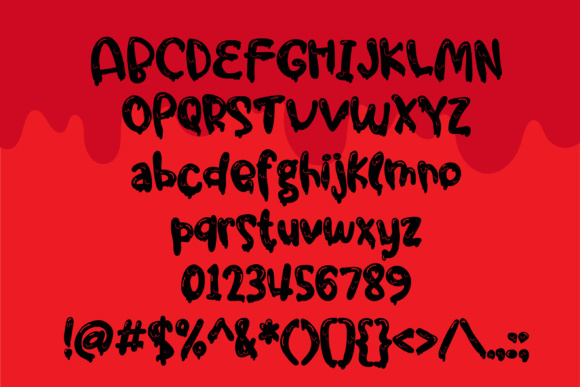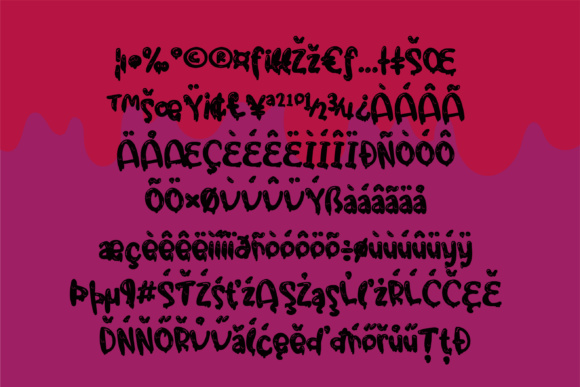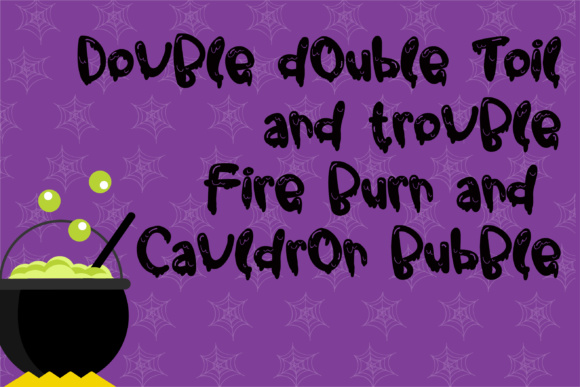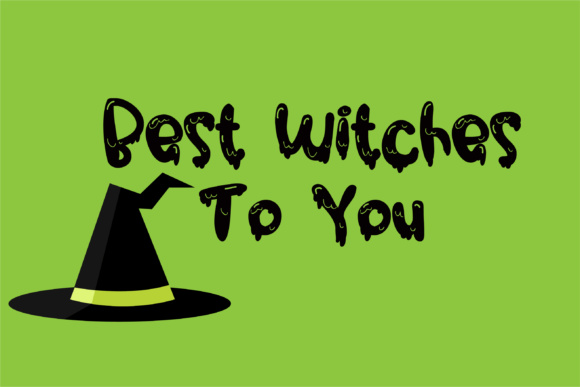
Introduction to Gooey Gumdrops Gorey Font
As a designer, have you ever found yourself in a creative rut, struggling to find the perfect font to match your project’s playful and whimsical vibe? You’ve spent hours scouring design resources, only to settle for a font that’s just…okay. But what if you could bring a little more excitement and personality to your design?
Enter the Gooey Gumdrops Gorey Font, a soft and gooey print that’s sure to add a sloppy feel to your next creative project. With its added goo and drips, this font is perfect for designers looking to add a touch of playfulness and whimsy to their work. And the best part? It’s available as a high-quality, free download, making it a valuable resource for designers of all levels.
Key Features of Gooey Gumdrops Gorey Font
- Unique, hand-drawn design with a playful, whimsical feel, perfect for creative projects and kids’ educational materials.
- This font is ideal for designers looking to add a touch of personality and fun to their creative projects, from children’s books to party invitations.
Honest Review: Gooey Gumdrops Gorey Font
I recently stumbled upon the Gooey Gumdrops Gorey Font, and I’m excited to share my thoughts on this unique design resource. As a designer, I appreciate fonts that bring an extra layer of creativity to my projects.
Here are some aspects that work well: ✨ The font’s gothic and eerie vibe is perfect for creating a spooky or mysterious atmosphere in your design. ✨ The high quality of the font ensures that it looks great on both light and dark backgrounds. ✨ The transparent background option makes it easy to layer and manipulate the font in your design.
However, there are some limitations to consider: ⚠️ The font may not be suitable for projects that require a more neutral or professional tone. ⚠️ Some users may find the font’s gothic vibe too intense or overwhelming.
Overall, I’m impressed with the Gooey Gumdrops Gorey Font. It’s a great addition to any designer’s toolkit, and I can see it being a hit for creative projects that require a touch of darkness and mystery.
The Gooey Gumdrops Gorey Font is ideal for creative projects that require a unique and playful touch. It’s perfect for designing children’s books, party invitations, and other fun and whimsical projects.
Tips for Getting the Most Out of Gooey Gumdrops Gorey Font
To get the most out of the Gooey Gumdrops Gorey Font, experiment with different font sizes, colors, and styles to create a visually appealing design. You can also combine it with other fonts and design elements to add depth and interest to your project.